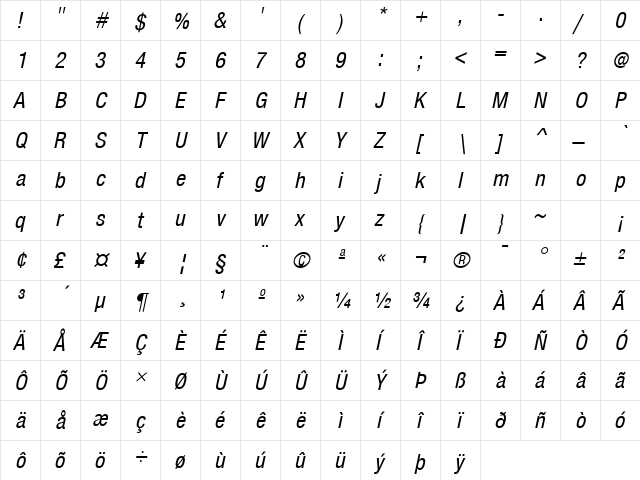
Sans Condensed ITALIC Font Preview
Design Context for Sans Condensed Typeface
Sans Condensed is a composed and adaptable typeface that performs quietly and consistently across a wide range of design contexts. The dynamic lean of this cut emphasises speed and emphasis in any layout. The condensed width makes it efficient for tight spaces without sacrificing legibility.
Pro Tip: Try Sans Condensed for annotation and caption copy alongside an upright companion — the contrast in angle creates a dynamic but ordered typographic system.